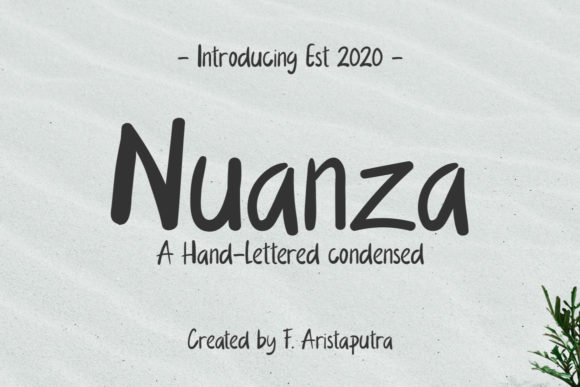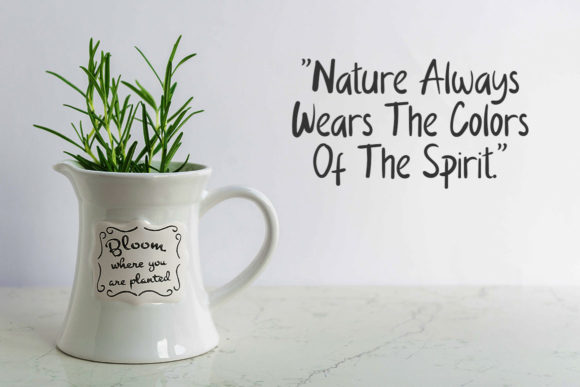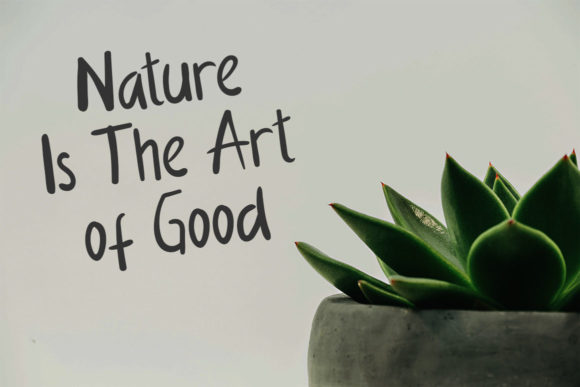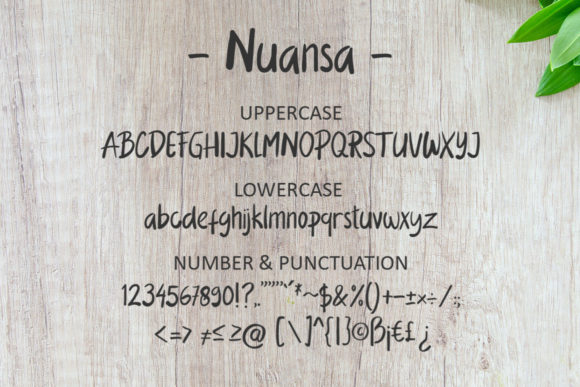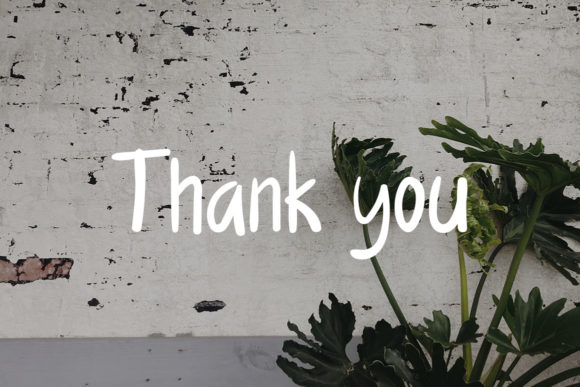
Nuanza Font
About Nuanza Font
Nuanza is a simple and distinct handwritten font. Fall in love with its incredibly versatile style and use it to create spectacular designs!